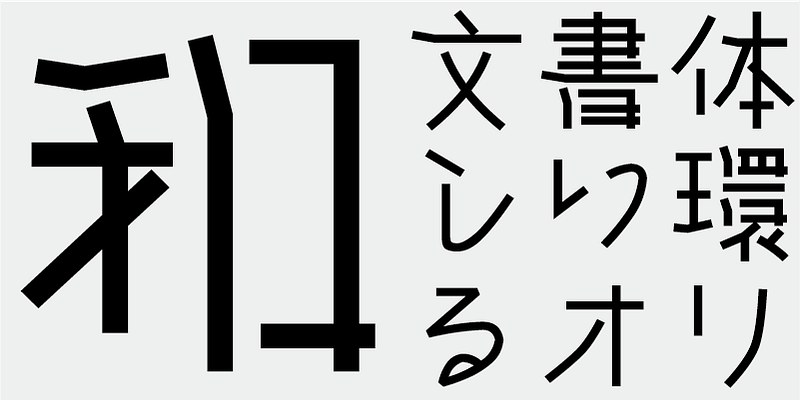
AB Kumiki M Font Free Download is a bold and structured Japanese-style typeface inspired by the precision of traditional wood joinery, known as “kumiki.” With its clean lines, geometric balance, and sturdy character forms, this font is ideal for architectural branding, signage, product design, packaging, and any creative project that values craftsmanship, tradition, and strength.
AB Kumiki M combines modern typographic clarity with cultural authenticity. Its medium weight (“M”) makes it highly versatile—strong enough for display use, yet refined enough for detailed layout work. The font’s stylized strokes and balanced spacing offer a unique visual identity that stands out without overwhelming the content.